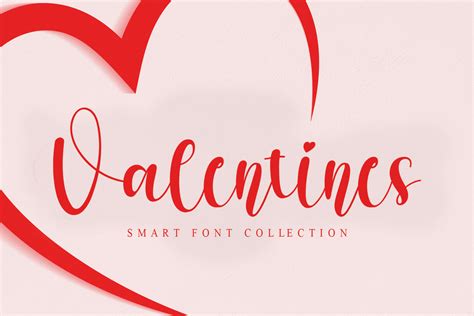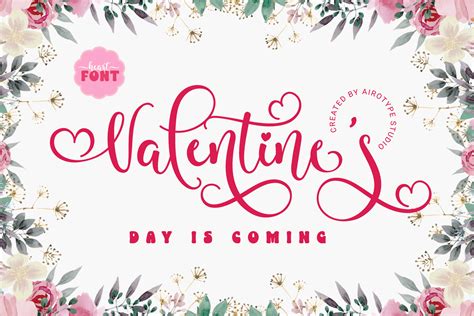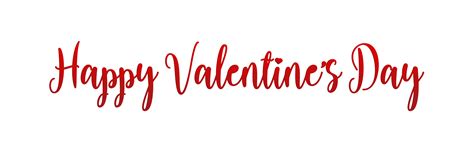
When February rolls around, the air fills with anticipation, chocolate-scented air, and the need for heartfelt communication. Whether you are a professional graphic designer crafting social media campaigns or a hobbyist creating personalized cards, the right typography acts as the heartbeat of your project. Choosing the perfect Valentines Day fonts can transform a simple message into an evocative piece of art, setting the mood before a single word is even read. By carefully selecting your typeface, you bridge the gap between simple text and genuine emotional expression, ensuring your message resonates deeply with your intended audience.
The Power of Typography in Seasonal Design
Typography is far more than just readability; it is the visual voice of your message. During February, your design choices should lean into warmth, playfulness, or elegant sophistication depending on the context of your project. If you are designing for a romantic dinner menu, a clean serif might convey intimacy, whereas a bouncy script font suggests youthful excitement. Understanding the psychology behind Valentines Day fonts allows you to communicate affection, friendship, or professional appreciation without changing the copy itself.
When selecting a typeface, consider these three pillars of holiday design:
- Legibility: Ensure your chosen font is readable, especially on smaller mediums like gift tags or mobile social media graphics.
- Thematic Synergy: Does the font weight align with your color palette? Thick, bold fonts pair well with deep reds, while light, airy scripts suit soft pinks and creams.
- Emotional Context: Match the font personality to the recipient. A whimsical font works for children’s classroom cards, while an elegant, refined script is better for wedding-related stationery.
Categorizing Your Valentine’s Day Font Styles
To help you navigate the vast array of options available, we have categorized the most popular styles that define this season. Each style serves a specific purpose, helping you achieve a professional finish regardless of your design experience level.
| Font Category | Best Used For | Vibe |
|---|---|---|
| Elegant Scripts | Greeting cards, wedding invitations | Romantic, sophisticated, classic |
| Playful Display | Stickers, social media, posters | Fun, energetic, youthful |
| Modern Serifs | Editorial layouts, packaging | Clean, high-end, editorial |
| Handwritten/Doodles | Personal notes, journaling, crafts | Personal, authentic, warm |
💡 Note: Always ensure your font has proper kerning settings enabled. Valentine's Day fonts often feature cursive letters that overlap; poor spacing can make these look disjointed rather than elegantly connected.
Best Practices for Pairing Fonts
One common mistake when designing for holidays is overcrowding a project with too many decorative fonts. A general rule of thumb is to pick one "hero" font—which will be your primary Valentines Day fonts choice—and pair it with a neutral, highly readable sans-serif for body text. This balance ensures that your design remains functional while still capturing that festive, romantic flair.
Consider these pairing tips for a balanced look:
- High Contrast: Combine a thick, bold display font with a very thin, minimalist typeface.
- Consistency: Maintain a consistent color story between your headings and sub-headings to create a cohesive visual hierarchy.
- White Space: Don’t be afraid to let your fonts breathe. Especially with ornate script fonts, plenty of white space makes the lettering stand out significantly more.
Designing for Social Media and Digital Platforms
In the digital age, your designs often live on small screens. When creating Instagram or TikTok content, your typography needs to stop the scroll. Bold, heavy fonts work exceptionally well for digital ads because they catch the eye amidst a busy feed. If you are creating a digital "Valentine" for a loved one, a handwritten-style font adds a layer of digital intimacy that feels much more thoughtful than a standard system typeface.
For digital projects, test your Valentines Day fonts on multiple devices. Sometimes, a font that looks beautiful on a desktop monitor becomes illegible when scaled down for a mobile screen. Opting for fonts with high x-heights (the height of lowercase letters) generally helps with small-screen clarity.
💡 Note: When exporting your designs for the web, ensure you are embedding the correct character sets to maintain the font style across all browsers.
Final Thoughts on Festive Typography
Selecting the right typography is a creative journey that adds soul to your projects. By focusing on the emotional resonance of your design, you can ensure that your Valentine’s Day messages go beyond the surface level. Whether you lean toward the delicate charm of traditional calligraphy or the bold energy of modern display fonts, the key is to stay true to the sentiment you wish to convey. Experimenting with different pairings and being mindful of your layout will help you craft visuals that feel both personal and polished. As you prepare your holiday designs, keep these principles in mind to create lasting impressions that celebrate the spirit of the season through beautiful, intentional text choices.